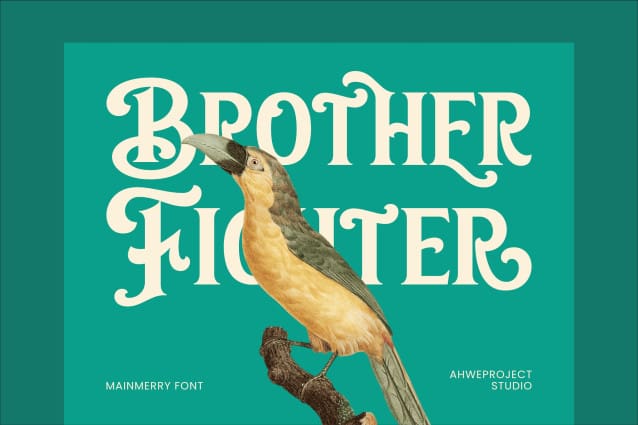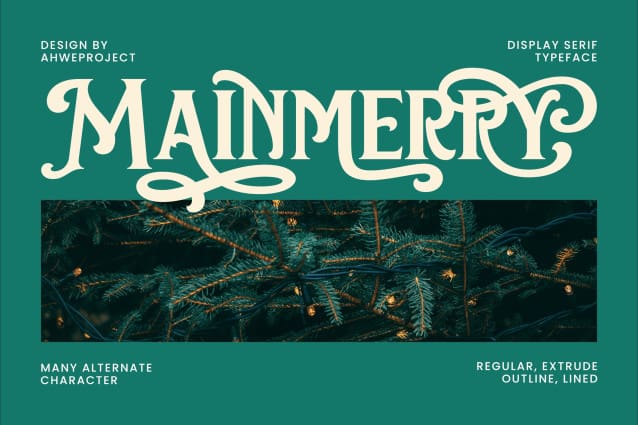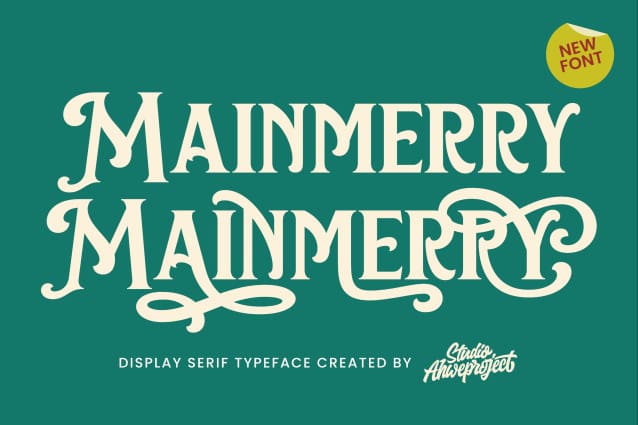
Mainmerry Font
Mainmerry Font is an elegant display serif typeface that blends a classic touch with modern styling. Featuring bold, high-contrast strokes and ornate swashes, this font exudes sophistication and festivity, making it perfect for holiday designs, branding projects, or any creative work that needs a touch of elegance and charm. Mainmerry Font stands out with its unique curves and decorative elements, providing versatility while maintaining readability. Enhance your designs with Mainmerry’s timeless appeal and give your text an exquisite flair.